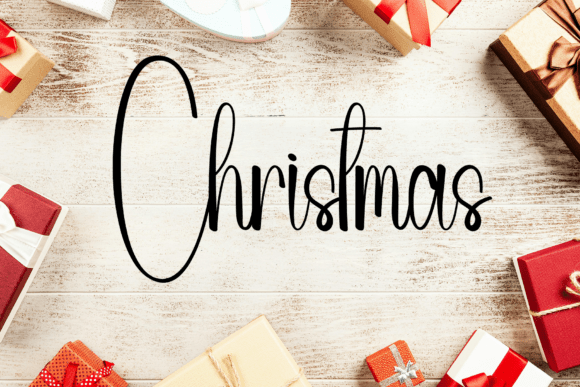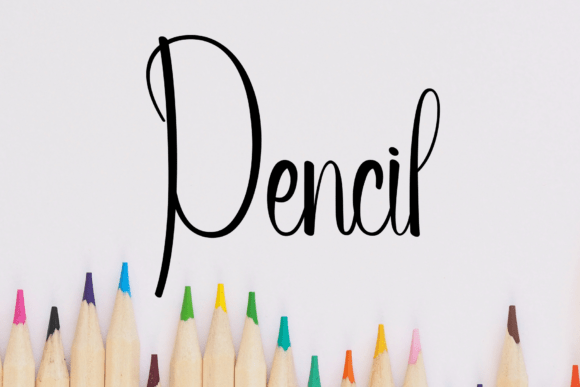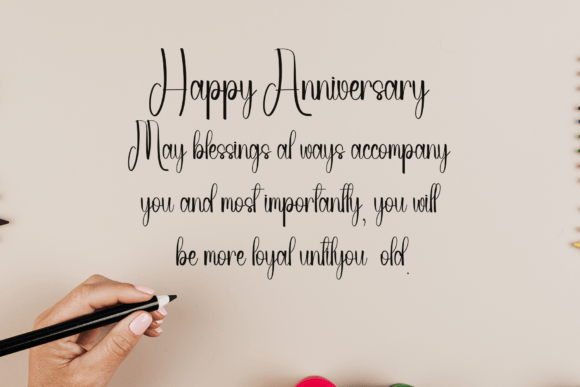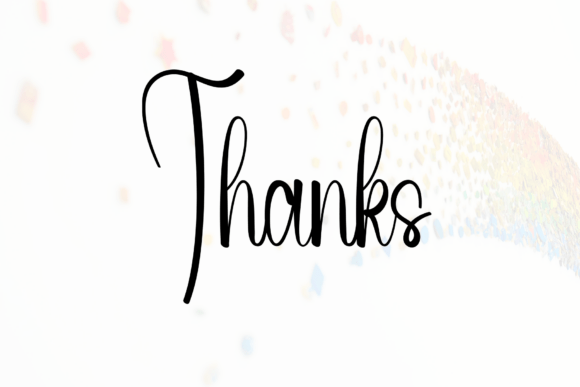
Introducing Background Font: The Perfect Blend of Relaxed and Luxurious
In the world of typography, fonts play a crucial role in conveying the tone and personality of a brand or design. For designers and crafters looking for a unique and versatile font, Background Font is an excellent choice. This handwritten font, which looks like it was drawn with a marker, offers a relaxed and sporty feel that’s perfect for a wide range of applications.
What is Background Font?
Background Font is a carefully crafted handwritten font that mimics the look of marker-drawn text. Its casual, effortless vibe makes it an ideal choice for designs that require a touch of elegance and sophistication without appearing too formal. Whether you’re working on a branding project, creating logos, or designing wedding supplies and greeting cards, Background Font is sure to impress.
Key Features of Background Font
- Handwritten with a marker feel: Background Font boasts a unique, hand-drawn aesthetic that gives it a personal and approachable feel.
- Relaxed and sporty: The font’s laid-back vibe makes it perfect for designs that require a casual touch.
- Luxurious and elegant: Despite its casual feel, Background Font exudes a sense of sophistication and luxury, making it suitable for high-end branding and marketing materials.
- Versatile: From fashion lookbooks to marketing promotions, Background Font can be used in a wide range of applications.
Use Cases for Background Font
Background Font’s versatility makes it an excellent choice for various design projects. Here are some use cases where this font truly shines:
- Branding and logos: Create a lasting impression with a unique and memorable logo that showcases your brand’s personality.
- Wedding supplies and greeting cards: Add a touch of elegance and whimsy to your wedding designs and greeting cards.
- Fashion and lookbooks: Showcase your fashion designs with a font that’s both stylish and laid-back.
- Marketing promotions: Stand out from the crowd with eye-catching marketing materials that feature Background Font.
Why Choose Background Font?
With so many fonts available, why should you choose Background Font for your next design project? Here are a few compelling reasons:
- Unique aesthetic: Background Font’s marker-drawn look sets it apart from more traditional fonts.
- Emotional connection: The font’s handwritten feel creates an emotional connection with your audience, making your design more relatable and engaging.
- Time-saving: With Background Font, you can achieve a high-end look without spending hours on design.
Tips for Using Background Font Effectively
To get the most out of Background Font, follow these tips:
- Pair with complementary fonts: Combine Background Font with other fonts that complement its style to create visual interest.
- Experiment with colors: Try out different color schemes to find the perfect match for your design.
- Play with texture and overlay: Add depth to your design by incorporating texture and overlay techniques.
Background Font is a versatile and stylish font that’s perfect for designers and crafters looking to add a touch of elegance and whimsy to their designs. With its unique marker-drawn aesthetic, relaxed and sporty feel, and luxurious vibe, this font is sure to elevate your branding, marketing materials, and creative projects. Give Background Font a try today and experience the difference it can make in your designs!